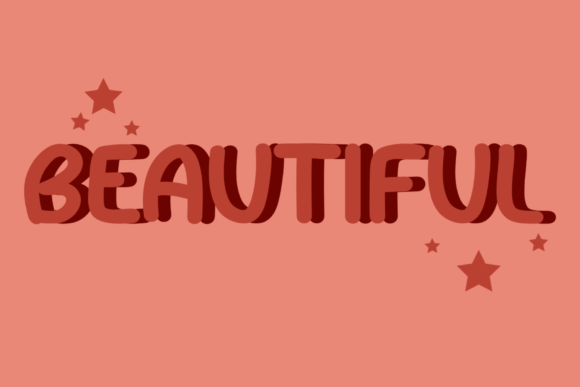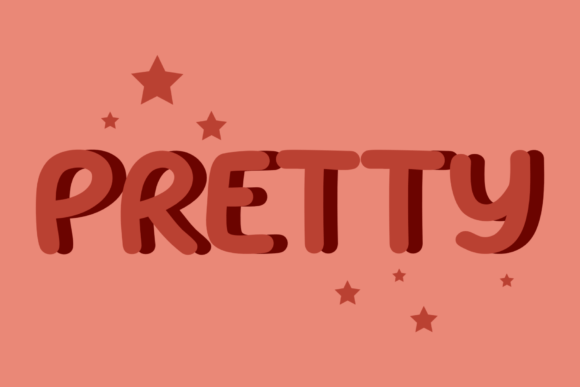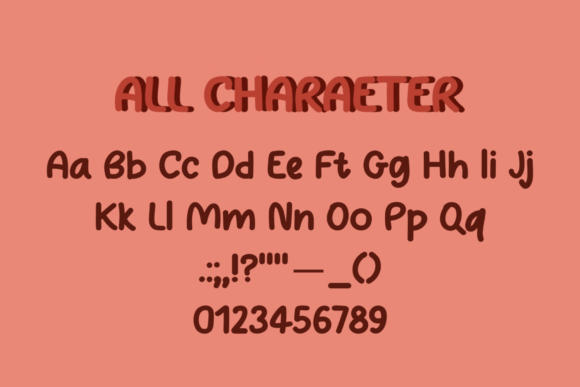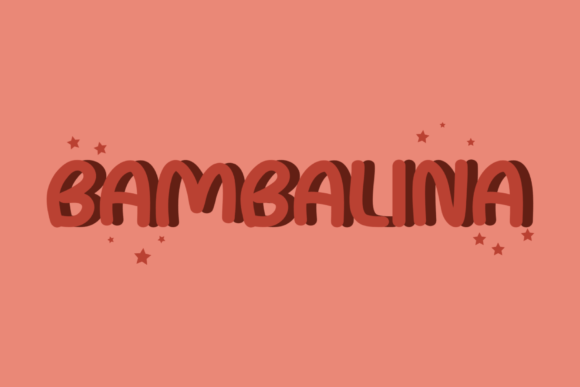
Introducing Bambalina Font: Elevate Your Designs with Elegance and Sophistication
In the world of design, typography plays a crucial role in conveying the tone and personality of a brand or project. When it comes to creating a luxurious and refined aesthetic, the right font can make all the difference. That’s where Bambalina font comes in – a stunning typeface that embodies the perfect blend of elegance and sophistication.
The Characteristics of Bambalina Font
Bambalina font boasts sleek curves and clean lines, making it an ideal choice for designers who strive for perfection. Its refined and classy appearance is sure to elevate any design project, from wedding invitations and high-end restaurant menus to logos and branding materials for luxury companies.
One of the standout features of Bambalina font is its versatility. Whether you’re looking to create a bold statement or a subtle impression, this font adapts seamlessly to various design contexts. Its elegant and understated charm makes it perfect for use in:
- High-end restaurant menus and branding
- Luxury brand logos and marketing materials
- Packaging design for premium products
- Magazines and editorials
Why Choose Bambalina Font?
So, what sets Bambalina font apart from other typefaces? Here are just a few reasons why designers and crafters are falling in love with this stunning font:
- Elegance and sophistication: Bambalina exudes refinement and class, making it perfect for high-end designs.
- Versatility: This font can be used in a variety of design contexts, from print to digital.
- Easy to read: Bambalina’s clean lines and clear letterforms ensure that your message is conveyed with clarity and precision.
- Unique and distinctive: Stand out from the crowd with a font that is both stylish and memorable.
Tips for Using Bambalina Font
To get the most out of Bambalina font, here are some expert tips to keep in mind:
- Pair with contrasting fonts: Combine Bambalina with a bold or playful font to create visual interest and contrast.
- Experiment with font sizes: Play with different font sizes to create hierarchy and emphasis in your design.
- Use in combination with images: Pair Bambalina with beautiful imagery to create a stunning visual effect.
In conclusion, Bambalina font is a game-changer for designers and crafters looking to elevate their designs with elegance and sophistication. With its sleek curves, clean lines, and refined appearance, this font is sure to impress. Whether you’re working on a wedding invitation, a luxury brand logo, or a high-end restaurant menu, Bambalina is the perfect choice. So why wait? Try Bambalina today and discover a world of design possibilities!